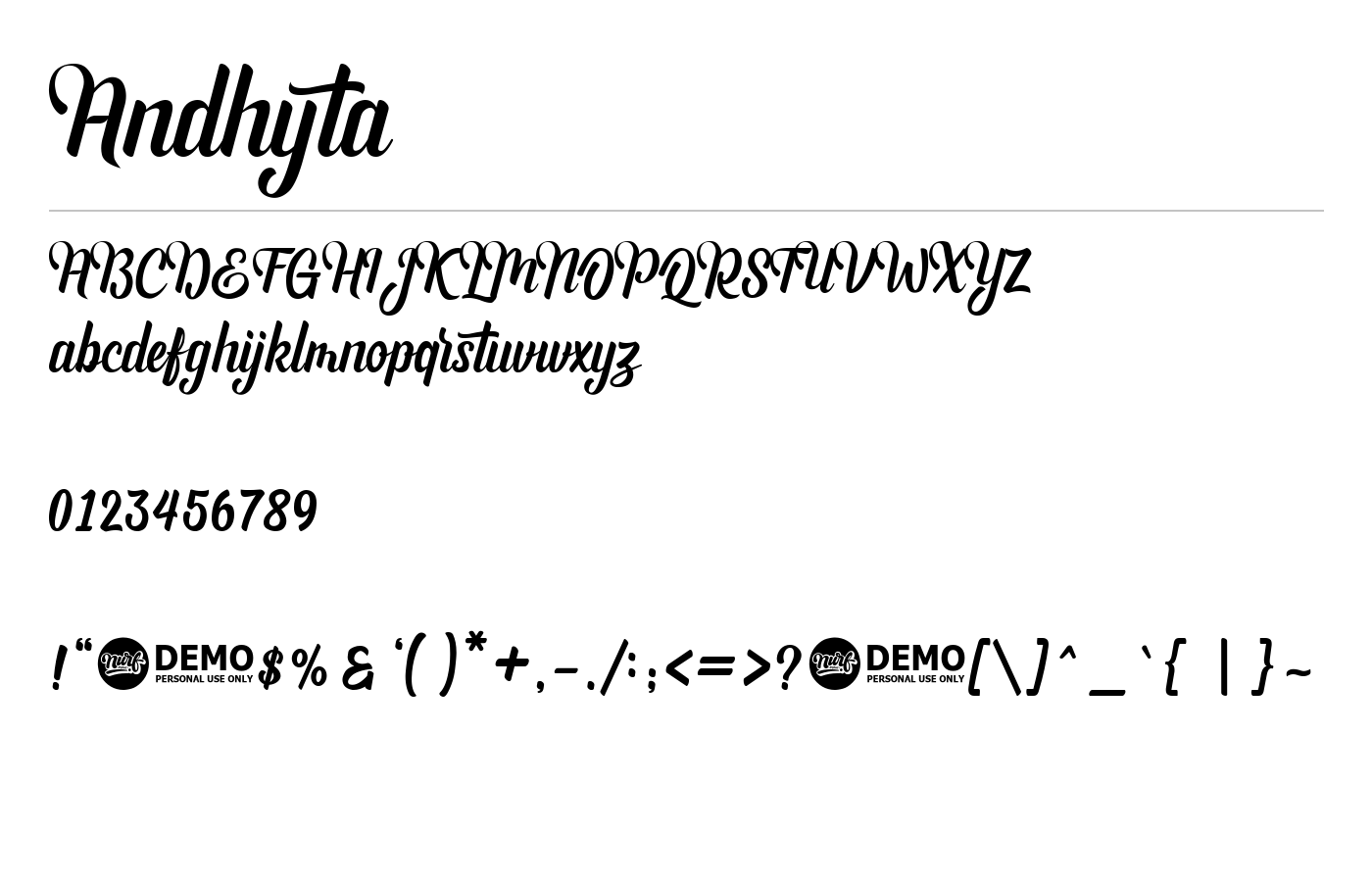
Andhyta is a stylish script font with a smooth, flowing design that combines elegance with a modern twist. Its moderately thick strokes and high contrast make it eye-catching yet readable, perfect for branding, invitations, and headline use where a touch of sophistication and personality is desired. This font works well in creative projects that aim to convey warmth and charm without sacrificing clarity.
Andhyta Font
About Andhyta Font